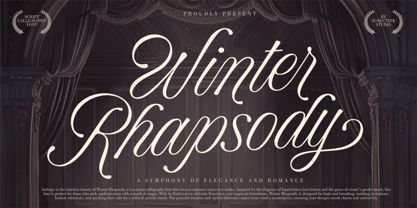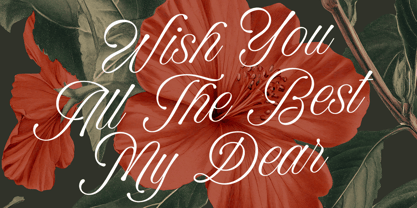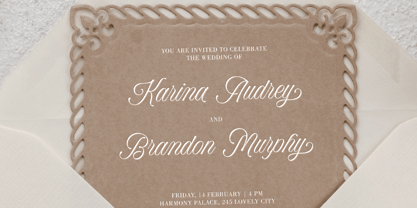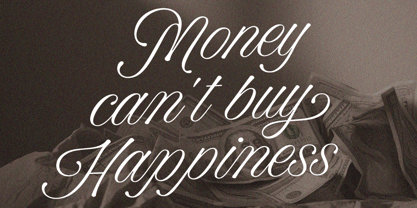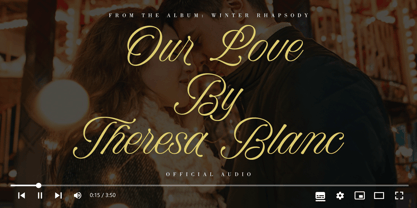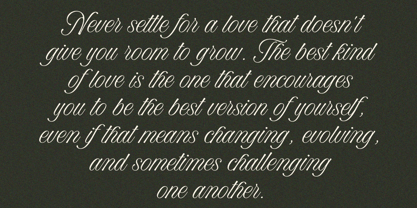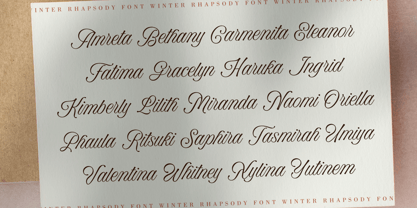
Winter Rhapsody
by Subectype
The Winter Rhapsody Font Family was designed by Rangga Subekti and published by Subectype. Winter Rhapsody contains 1 styles. More about this family
Winter Rhapsody is a Chic calligraphy font, described by an Love touch, perfect for Wedding party, invitation, Signature brand, and all of project with beautiful calligraphy font.
Fall in love with its incredibly distinct and timeless style and use it to create spectacular designs!